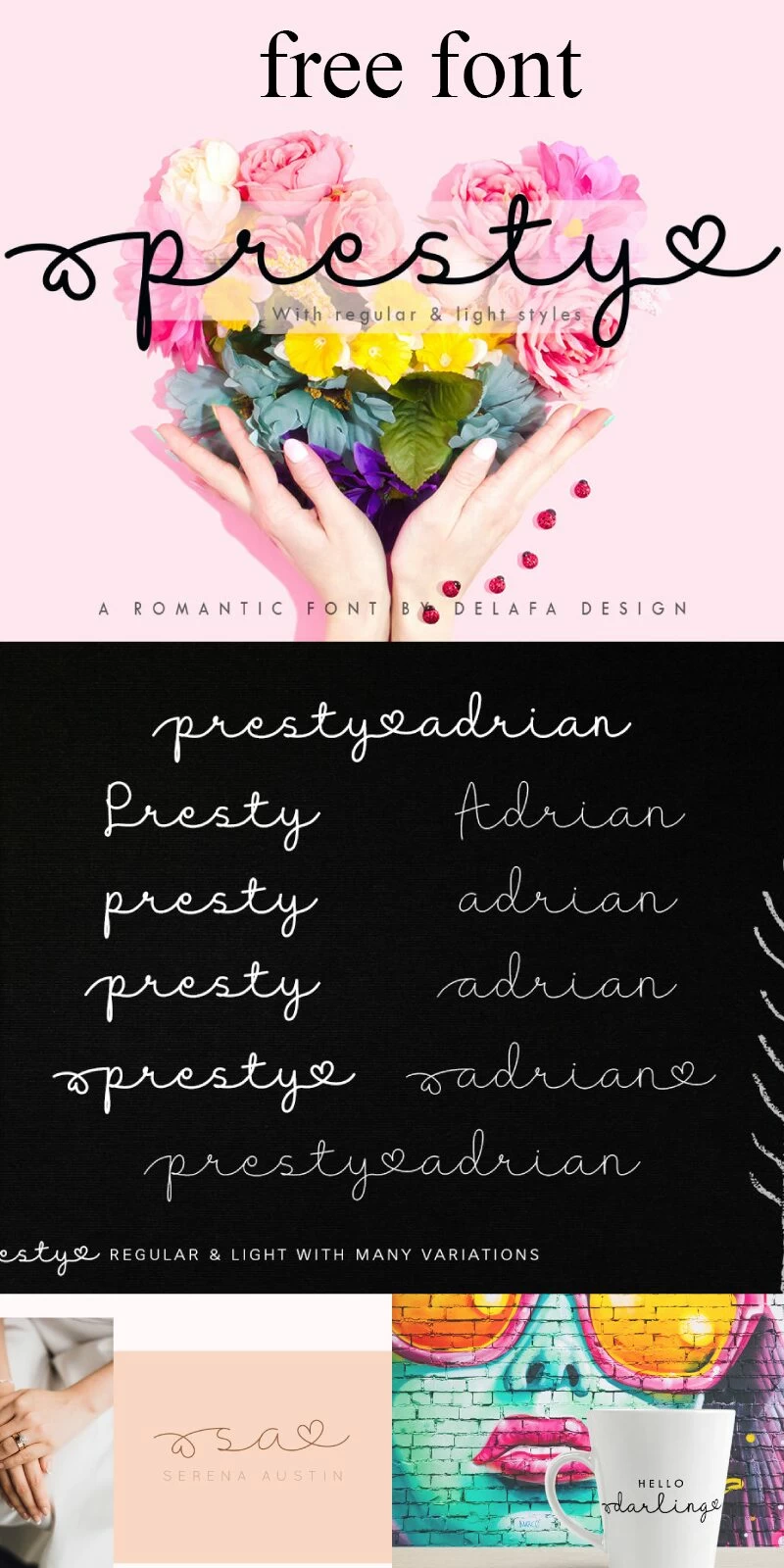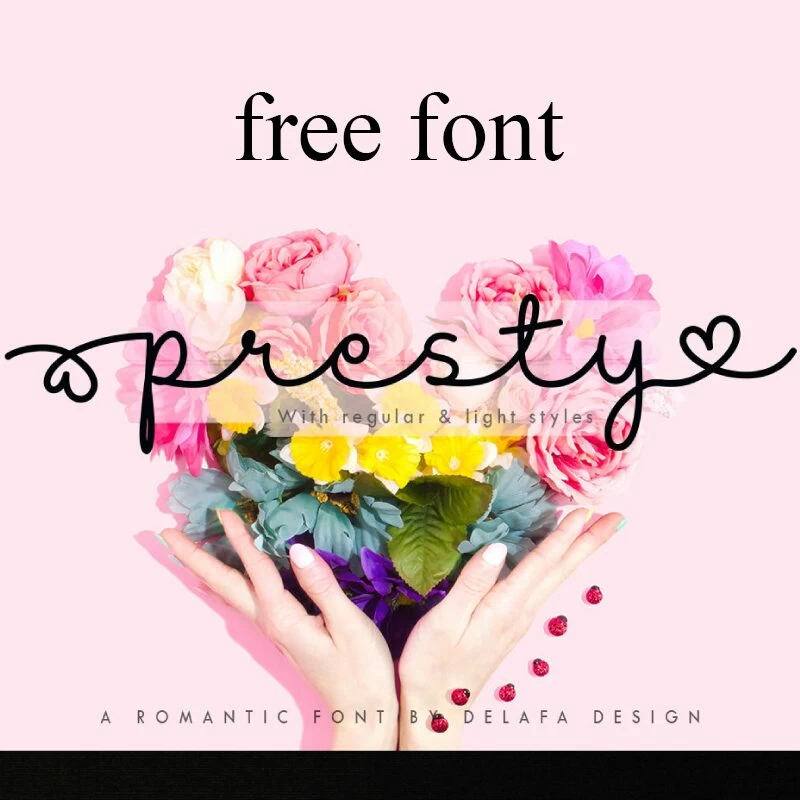
Free Presty Font:
Introducing, Presty – Regular and Light Romantic Script
by Delafa Design
In their own words..”Presty is a romantic handmade font that every single letter has been carefully crafted to make all the projects you use it in look beautiful. Presty comes in two styles, regular and light! You can use this font for branding, wedding, letter, invitation, magazines, handwritten quote, etc.”